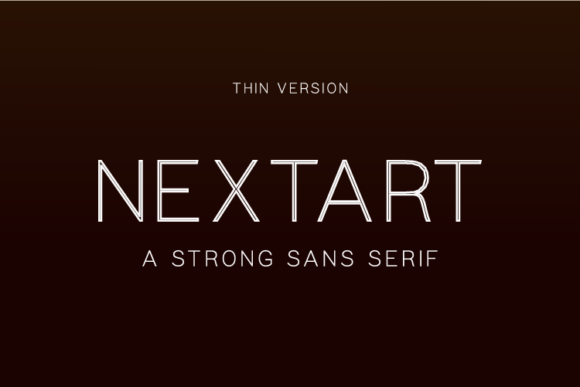
Nextart Outline Thin Font
Step into the world of Nextart Outline Thin, a revolutionary sans serif font that's poised to transform your creative endeavors. Nan Design, the visionary behind this masterpiece, has meticulously crafted each character to deliver a harmonious blend of sophistication and modernity. With its carefully calibrated weight distribution, Nextart Outline Thin exudes an aura of elegance that will elevate your designs to new heights.
Immerse yourself in a universe where fonts dance with grace and charm. Nextart Outline Thin's carefully designed alternates and ligatures add a layer of visual intrigue, lending a touch of uniqueness to every word you compose. Its well-balanced structure ensures effortless readability, making it the perfect choice for both captivating headlines and immersive body text.
Unleash your creativity and let Nextart Outline Thin ignite your imagination. This versatile font family effortlessly adapts to a myriad of design styles, from sleek and minimalist to playful and whimsical. Whether you're crafting logos, branding materials, social media graphics, or digital content, Nextart Outline Thin will seamlessly complement your vision.
Indulge in the beauty of Nextart Outline Thin, a font that embodies artistic finesse and contemporary flair. Experience the thrill of crafting designs that captivate and inspire, leaving an unforgettable impression on your audience. Embrace the power of typography and let Nextart Outline Thin be your guiding light on this creative journey.